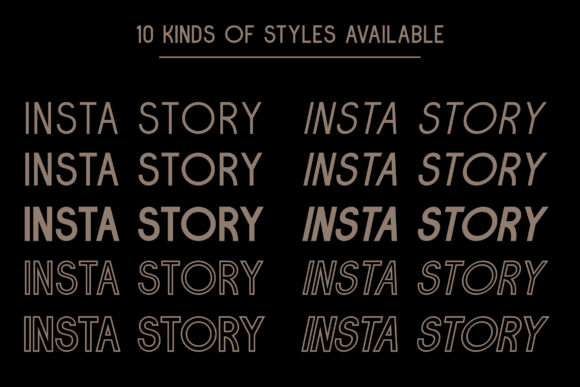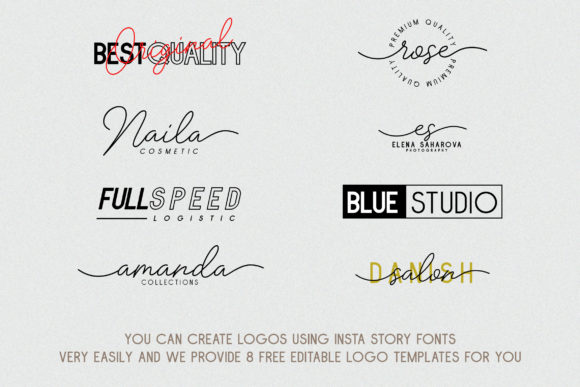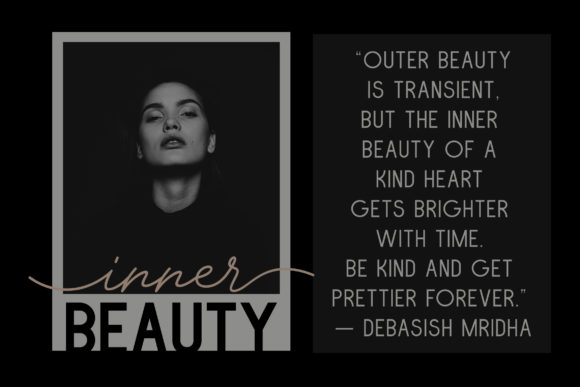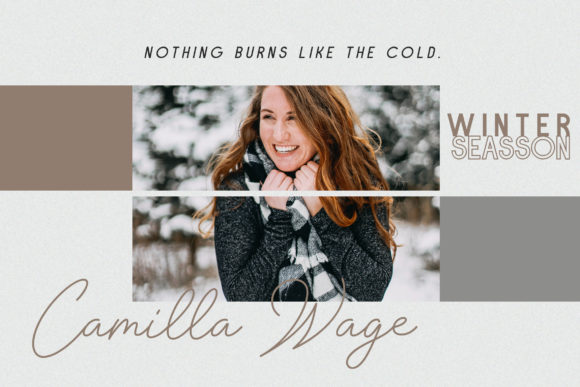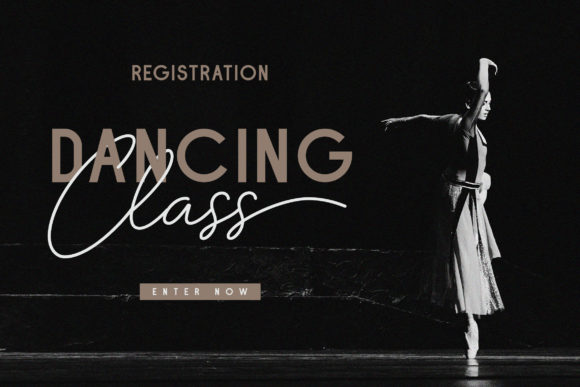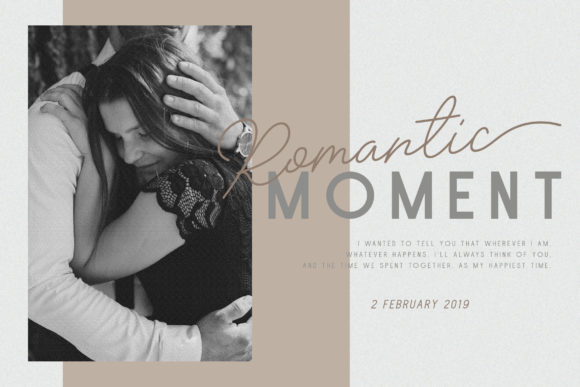
Introduction to Insta Story Duo Font
Have you ever found yourself in the midst of a creative project, desperately searching for the perfect font to bring your vision to life? The struggle is real, especially when you’re working on a tight deadline. That’s why we’re excited to introduce our latest design resource: Insta Story Duo Font. This stunning font duo is designed to help you elevate your designs and make a lasting impression.
With Insta Story Duo Font, you’ll have access to a family of 10 sans serif font styles paired with signature fonts that add a touch of handcrafted charm. Whether you’re designing a logo, business card, or social media graphics, this font duo is sure to be a game-changer. And the best part? It’s available for free download, making it an invaluable resource for designers of all levels.
- Unique characteristics include a modern aesthetic and stylish design elements, making it suitable for a variety of creative projects.
- Insta Story Duo Font is a versatile design resource, perfect for use in social media graphics, logos, and other visual content.
Honest Review: Insta Story Duo Font
I recently came across the Insta Story Duo Font, and I have to say it’s a decent addition to my design resource library. ✨ The font is a beautiful, modern script that can be used for a variety of creative projects. I love that it’s a free download, which makes it accessible to designers of all levels.
- Modern script design that’s perfect for creative projects
- High-quality font that looks great with a transparent background
- May not be suitable for formal or professional designs
- Limited characters and special fonts
Overall, I’m impressed with the Insta Story Duo Font, and I think it’s a great addition to any designer’s library. It’s perfect for creative projects, and the free download is a major plus. However, it may not be suitable for more formal designs, so be sure to use it wisely.
For a high-quality design, use the Insta Story Duo Font on a transparent background. This will allow you to customize the background color or image to match your design project. Additionally, you can use the font in combination with other design resources, such as graphics and images, to create a unique and creative project.
The Insta Story Duo Font is a versatile design resource that can be used in a variety of creative projects, such as social media graphics, blog posts, and presentations. It’s also a great option for free download, making it an ideal choice for designers on a budget.